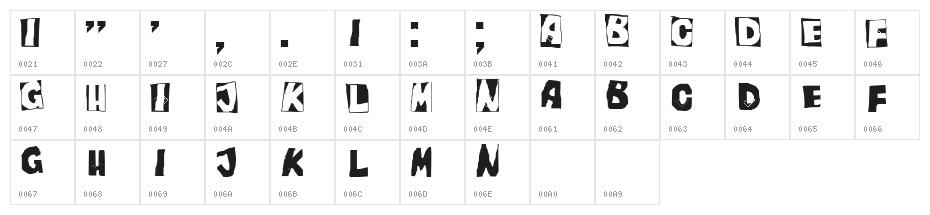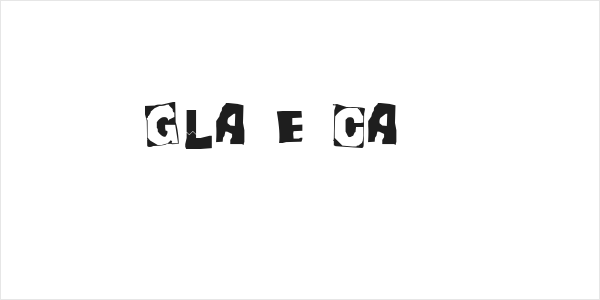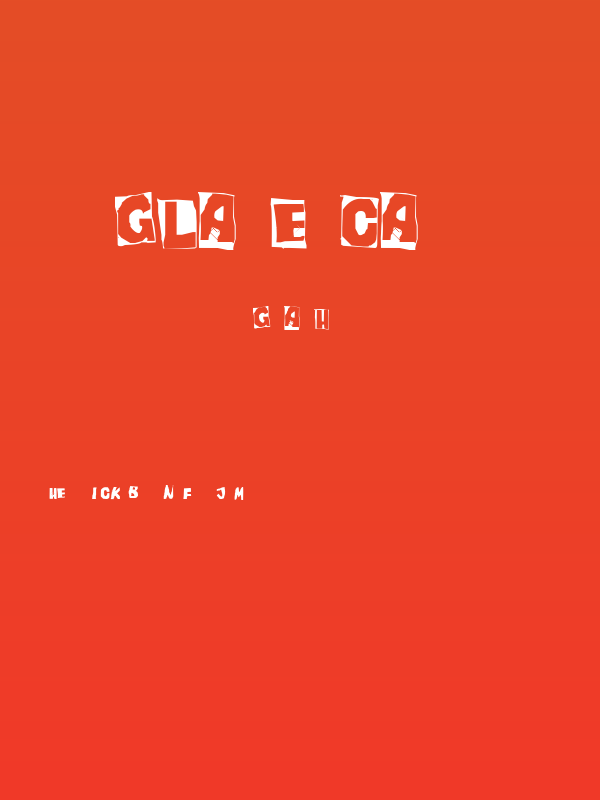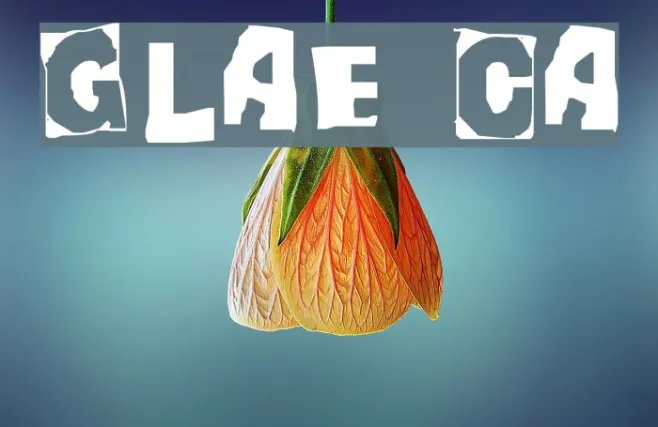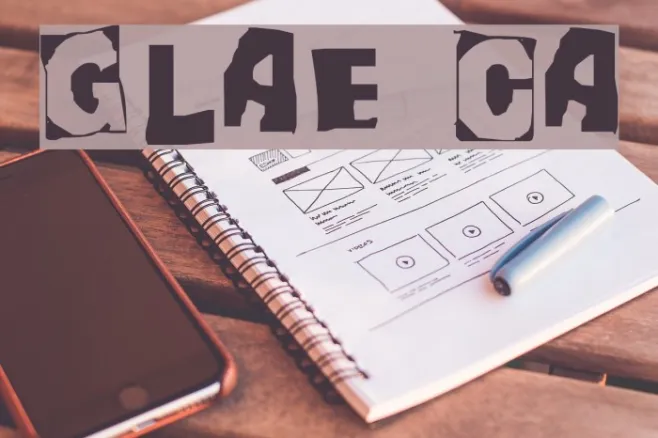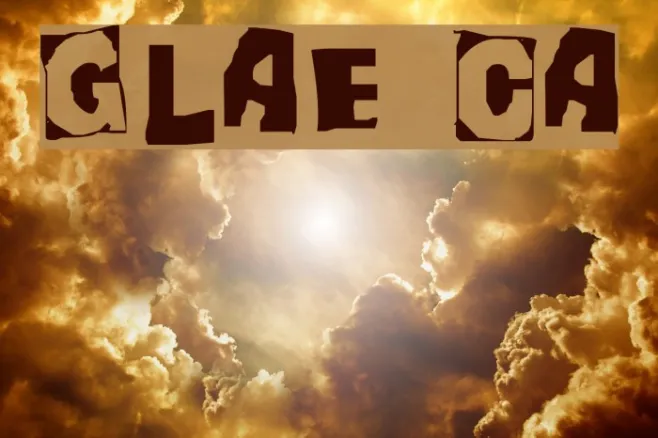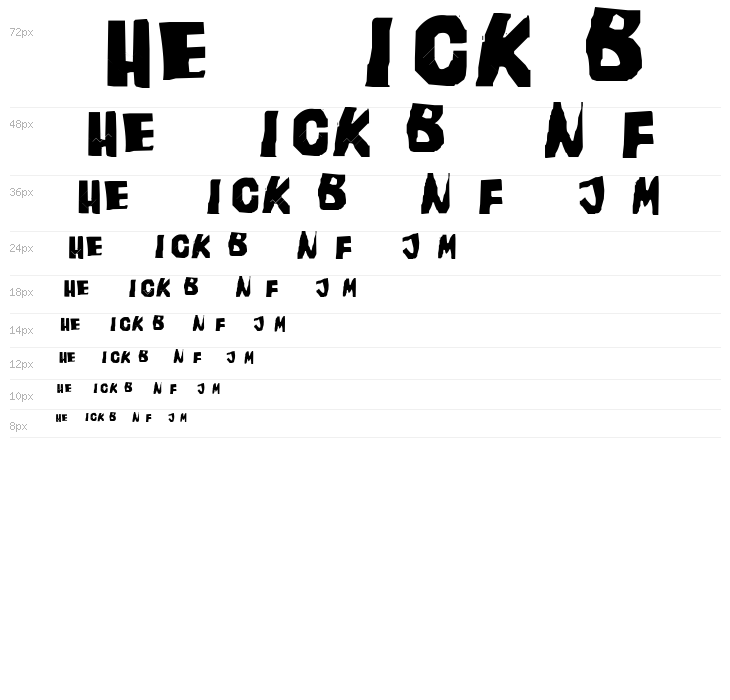
Glaze Caps Font
Glaze Caps Description
This font features a bold, dynamic style with a playful and artistic flair. Each character is uniquely designed with irregular edges and varying thickness, creating a sense of movement and energy. The uppercase letters are particularly striking, with a blocky, almost three-dimensional appearance that makes them stand out. The lowercase letters maintain the same boldness, though they are slightly more compact. The numbers and special characters follow the same design principles, ensuring consistency across the font. This font is ideal for projects that require a strong visual impact and a touch of creativity.
| Proposed Projects | Ideal for posters, album covers, branding materials, and creative projects that require a bold statement. |